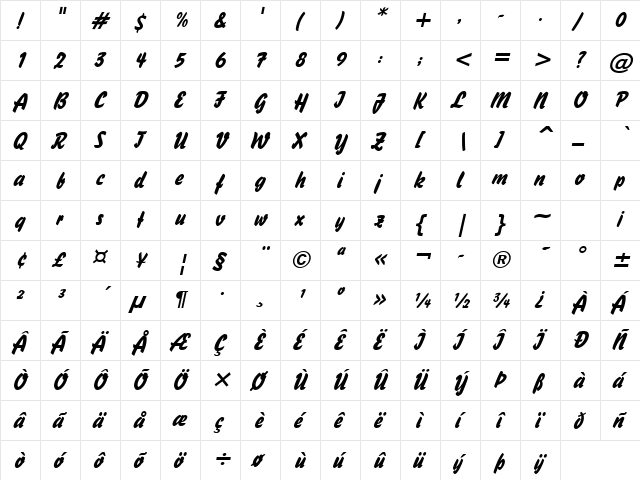
BrushStroke 26 Italic Font Preview
BrushStroke 26 Italic
Design Context for BrushStroke 26 Typeface
BrushStroke 26 flows with the natural rhythm of handwritten lettering, making it ideal for designs that call for warmth and personal expression.
Font Pairing: Combine BrushStroke 26 with a simple geometric sans for maximum contrast — the tension between flowing curves and clean structure is a classic typographic pairing.
Pro Tip: Pair BrushStroke 26 with a clean sans-serif for supporting text. The contrast between fluid script and geometric structure creates an elegant typographic hierarchy.